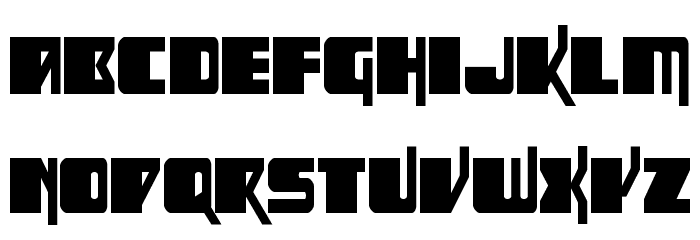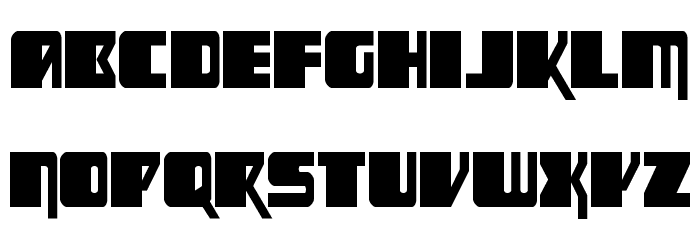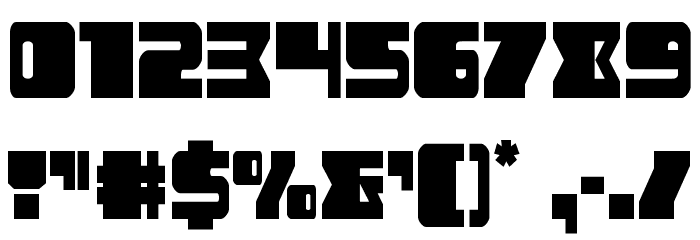
Space Runner Condensed Font
This font features a bold, futuristic design with a condensed structure, characterized by sharp angles and geometric shapes. The uppercase letters are particularly striking, with a blocky appearance that suggests a sense of strength and modernity. The lowercase letters maintain the same angular aesthetic, creating a cohesive look across all characters. Numbers and special characters are equally bold, ensuring consistency throughout. The font's overall style is distinctly modern, making it suitable for projects that require a contemporary and edgy feel.
A bold, futuristic font with sharp angles and a condensed structure.
- Font: Space Runner Condensed
- Proposed Projects: Ideal for sci-fi themed designs, video game titles, tech branding, and futuristic posters.